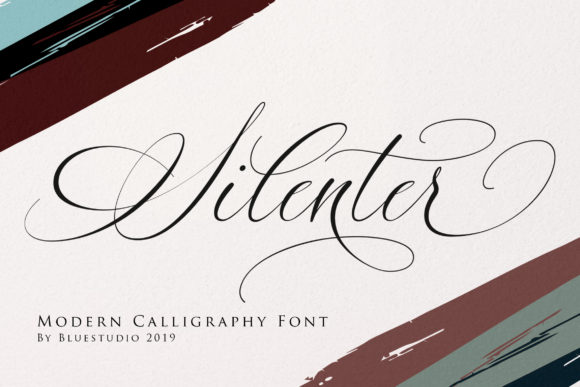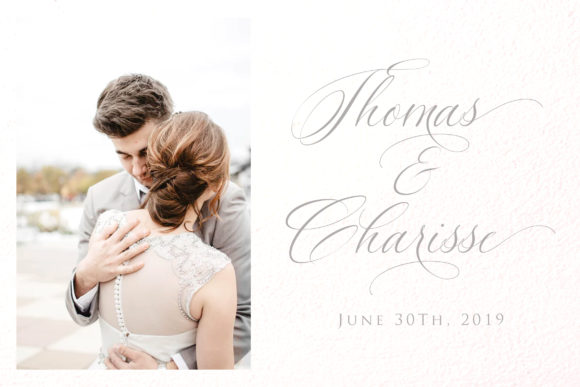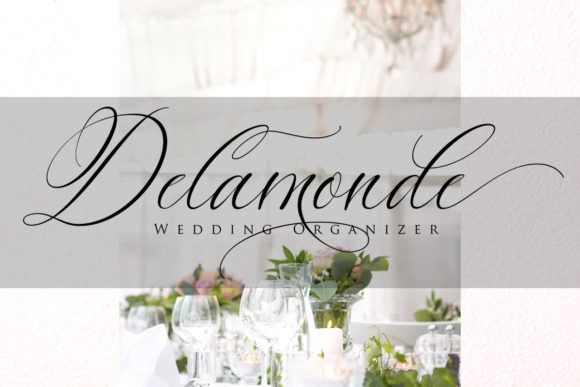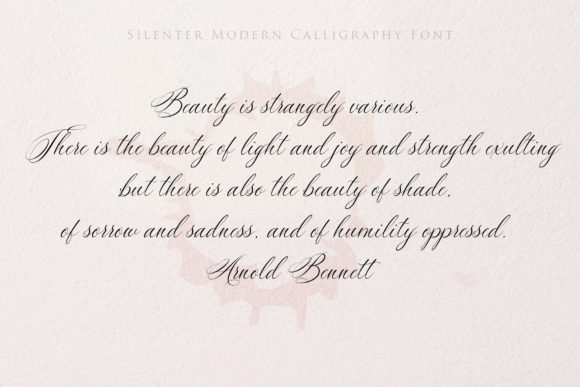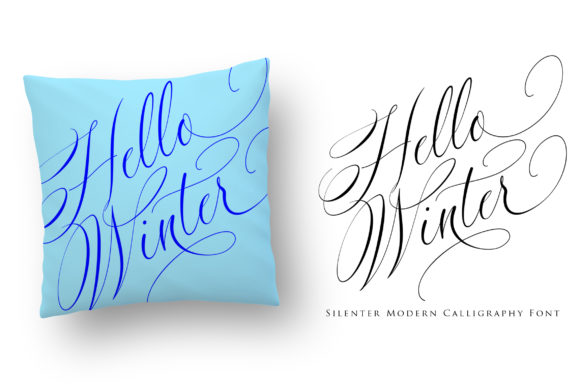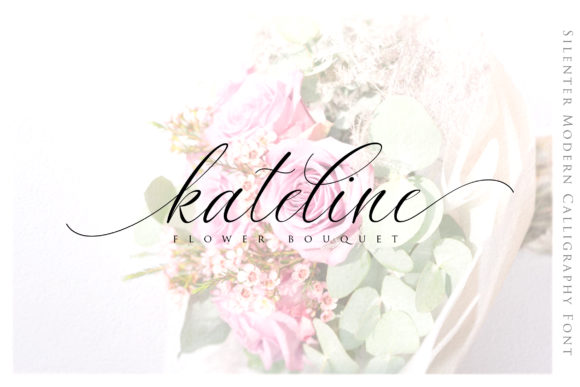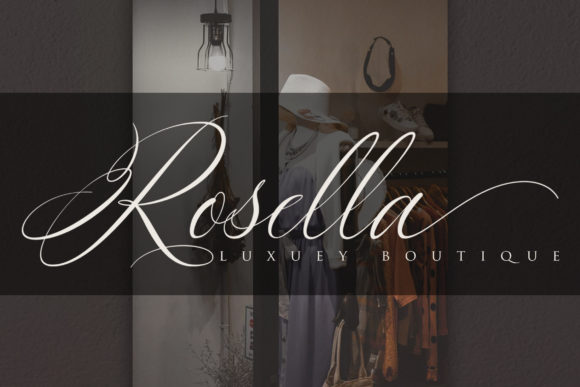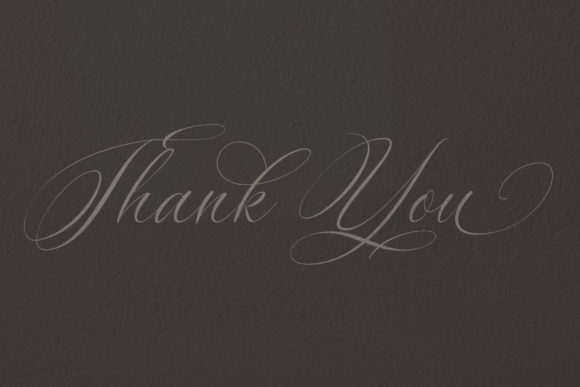
Silenter Font
About Silenter Font
Silenter is a delicate and charming handwritten font with a bold feel. Use it to add a sophisticated spark to any design project!